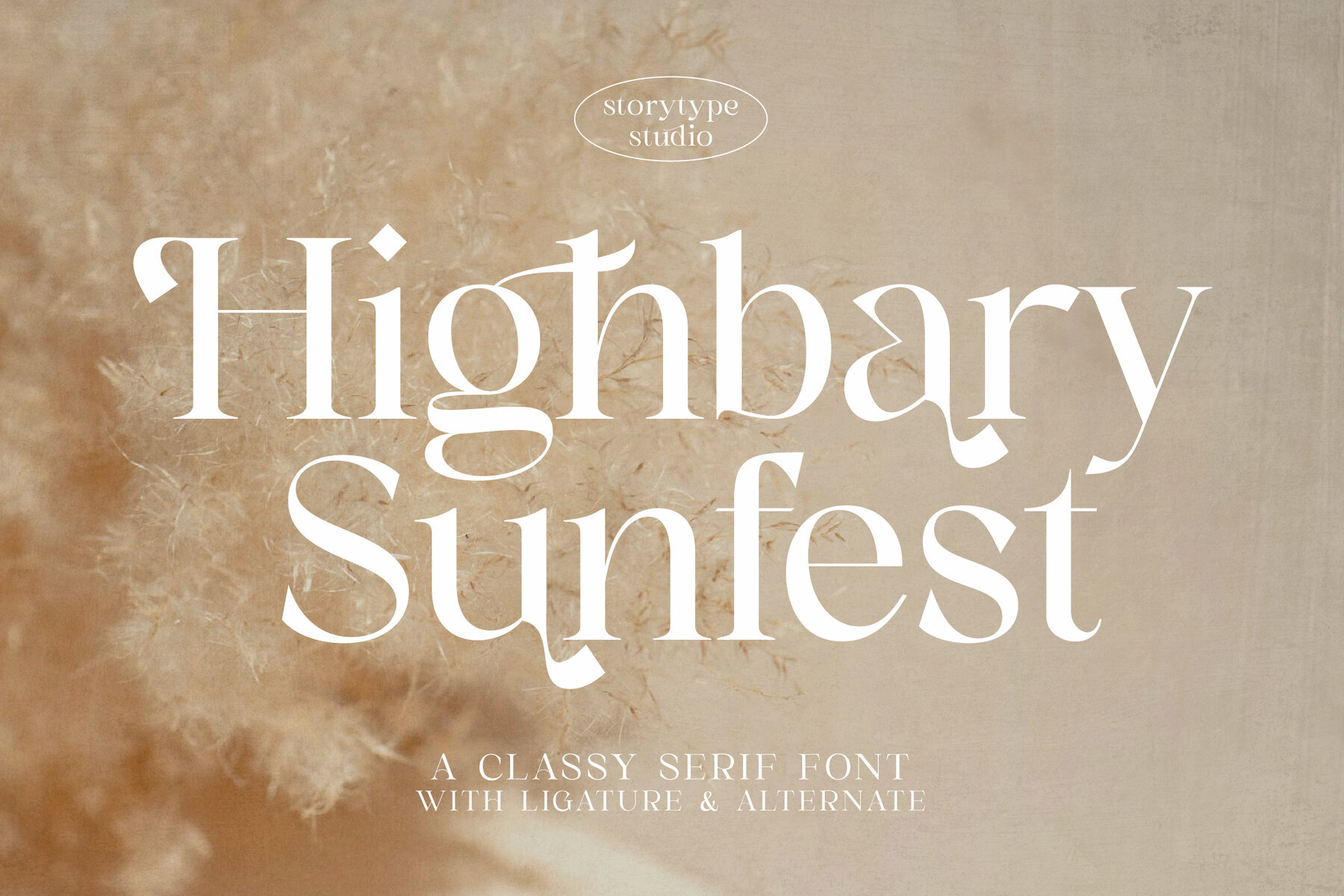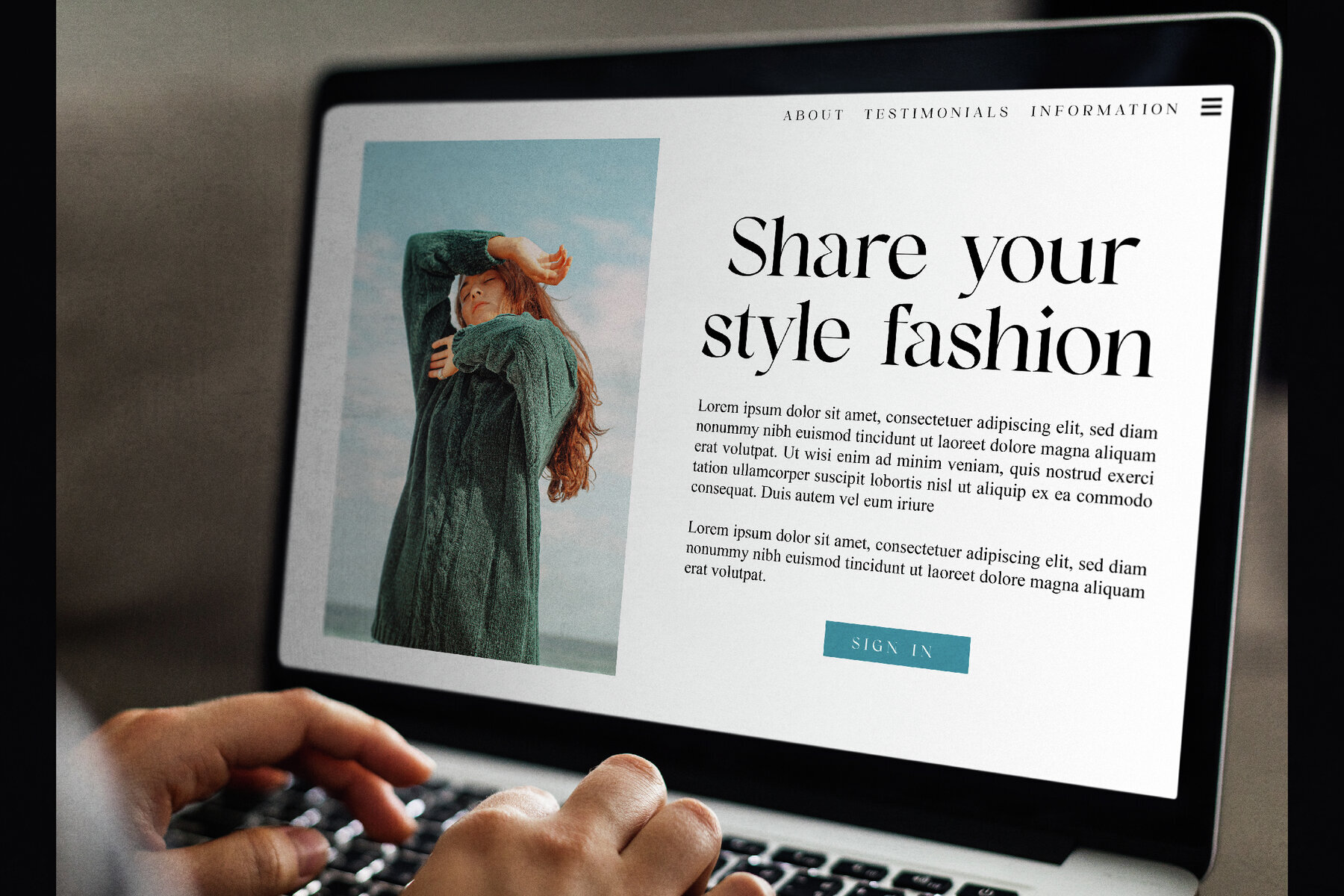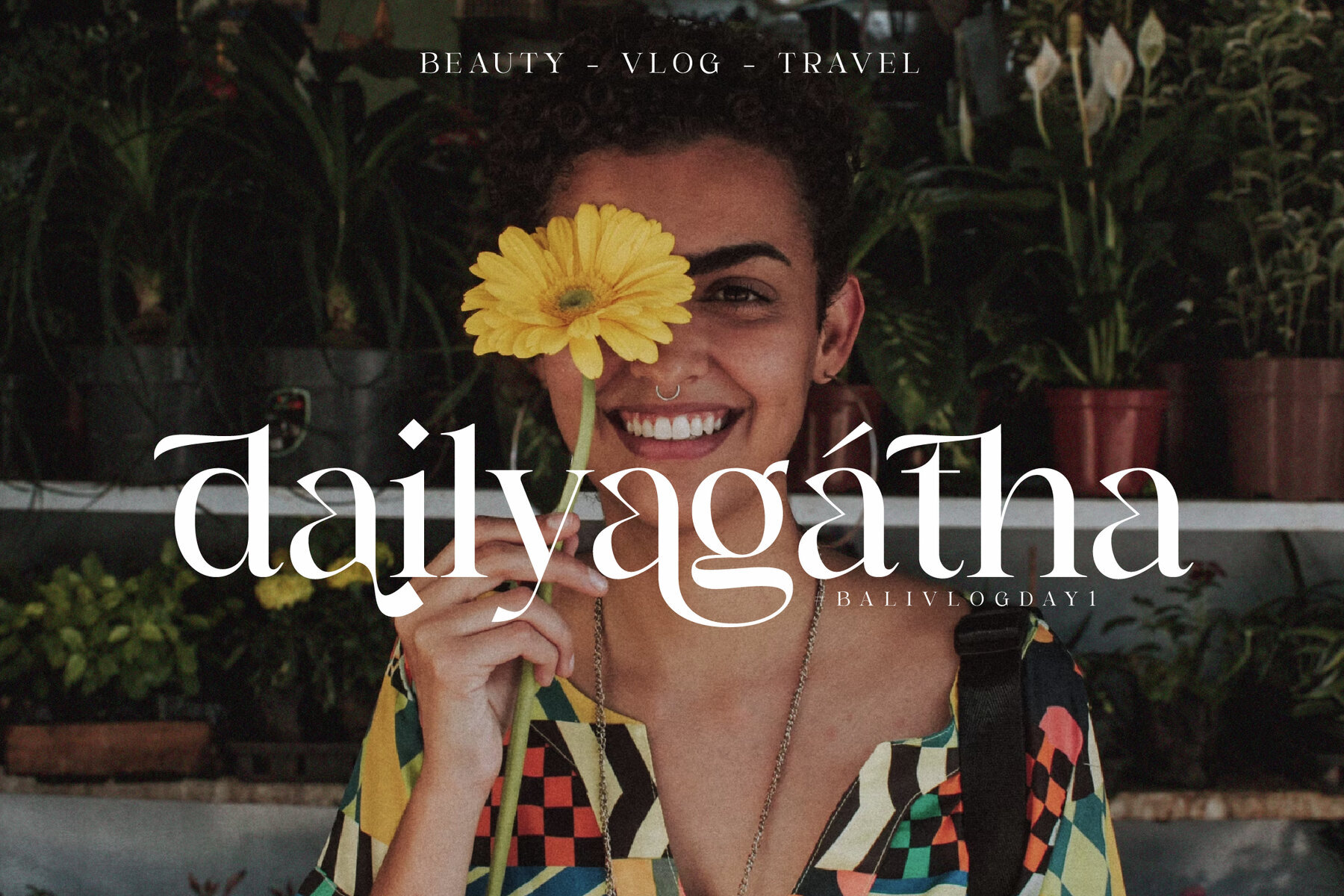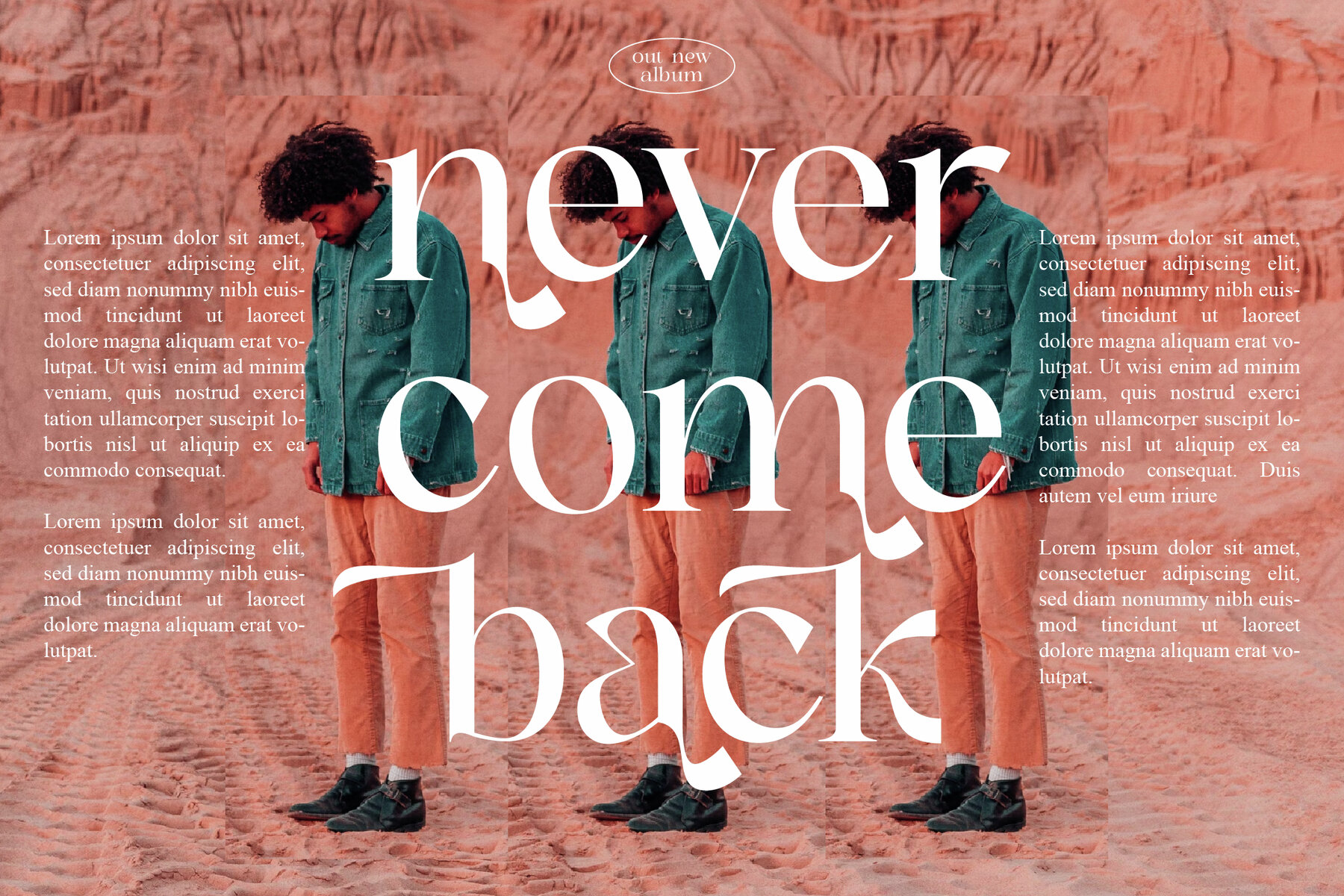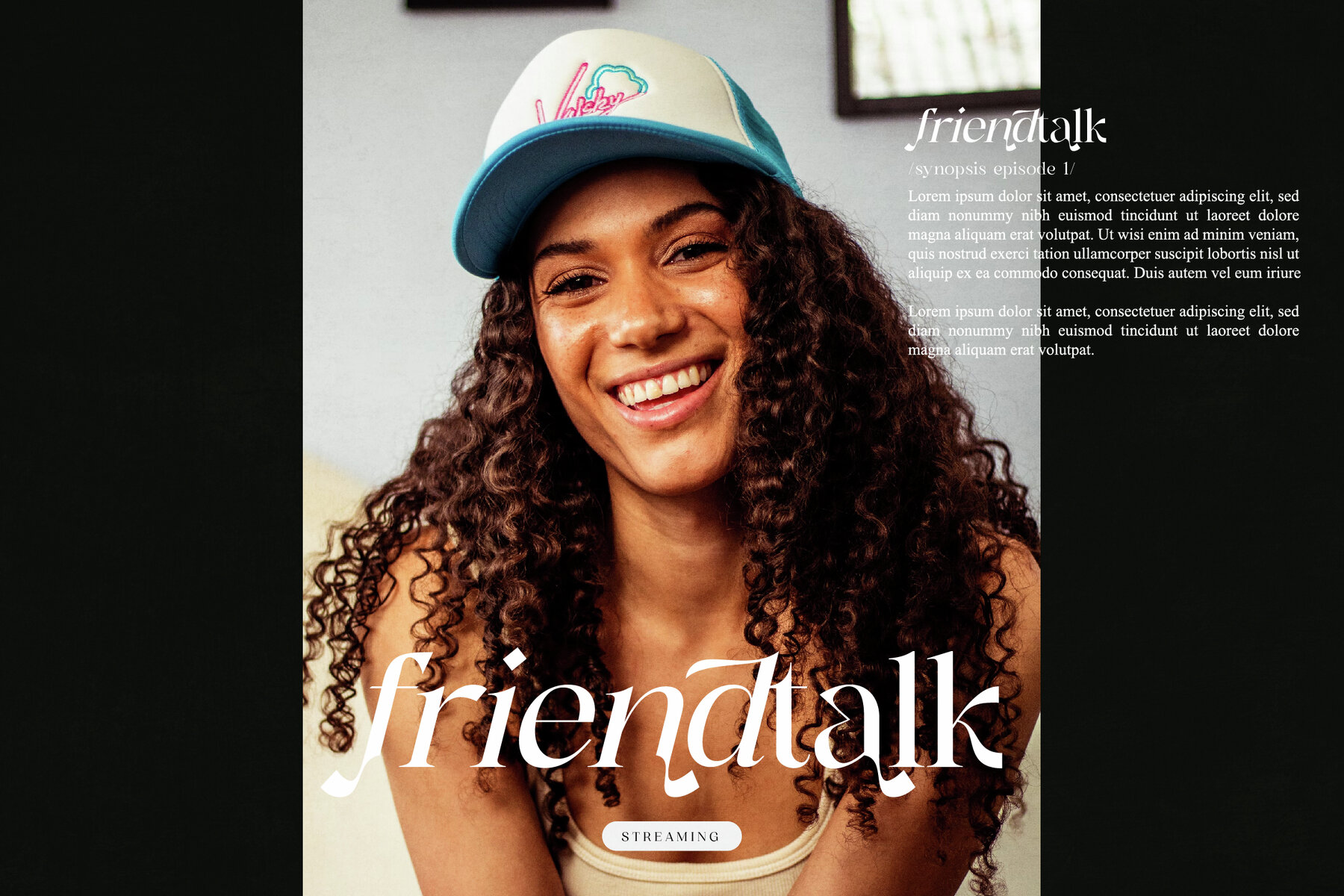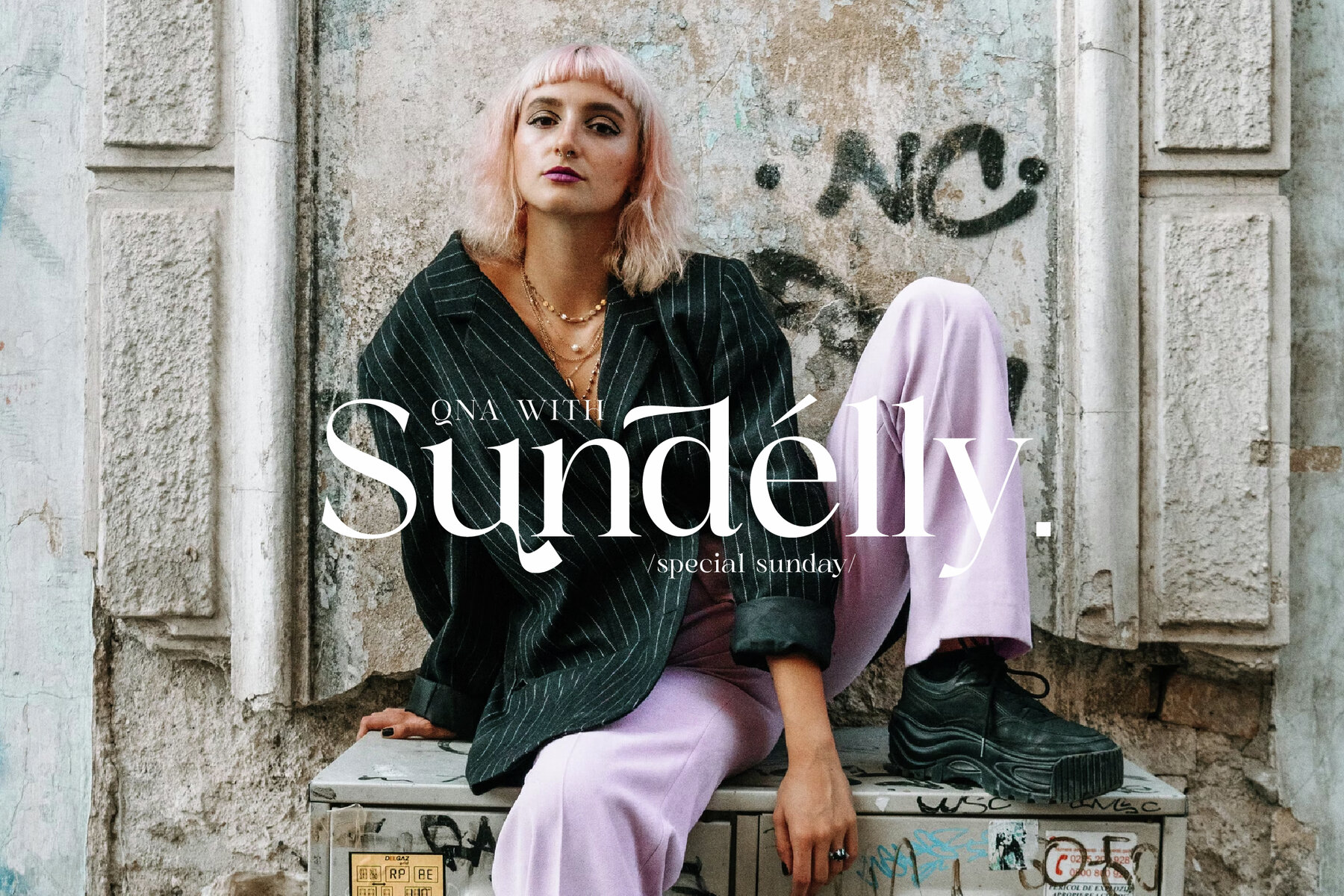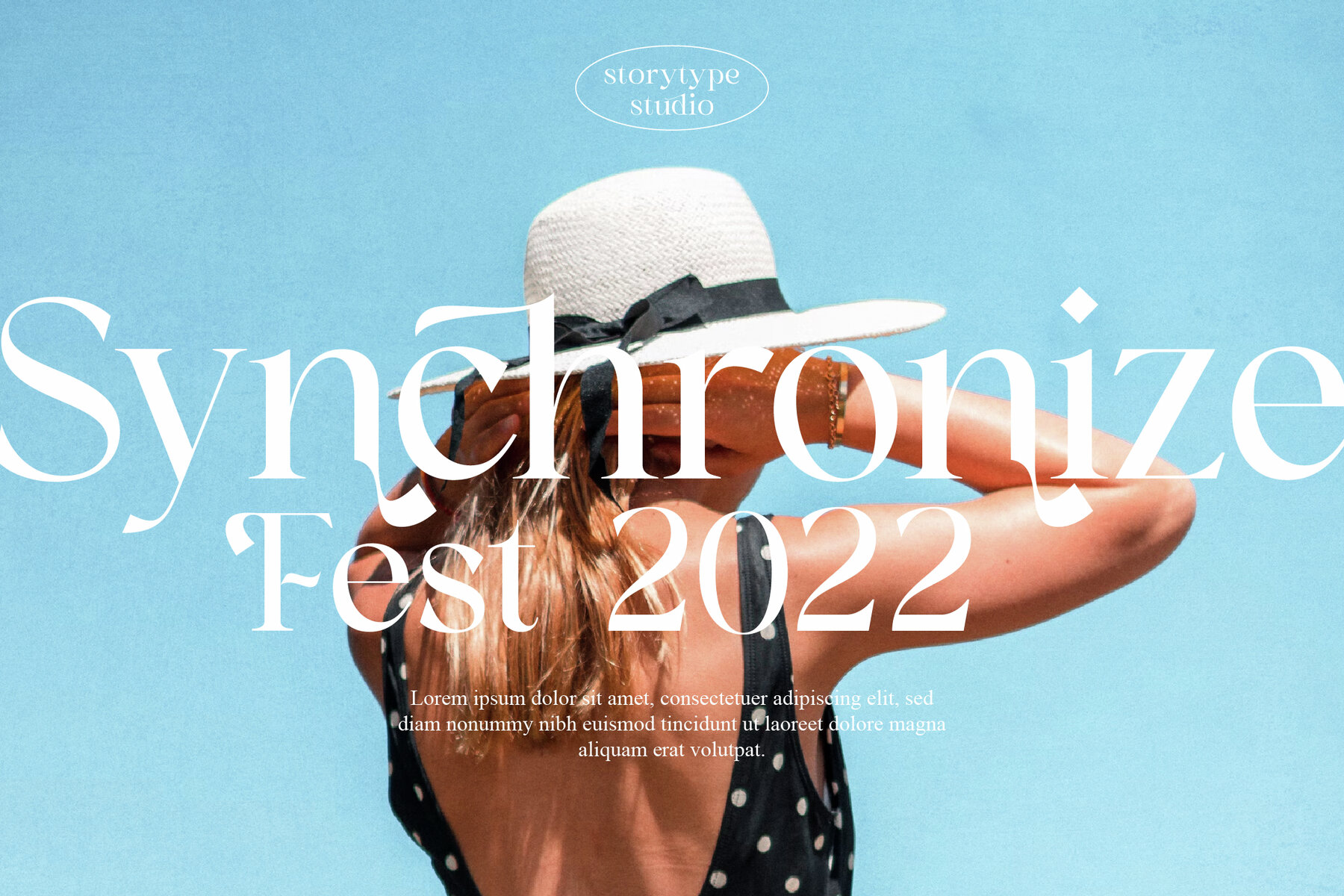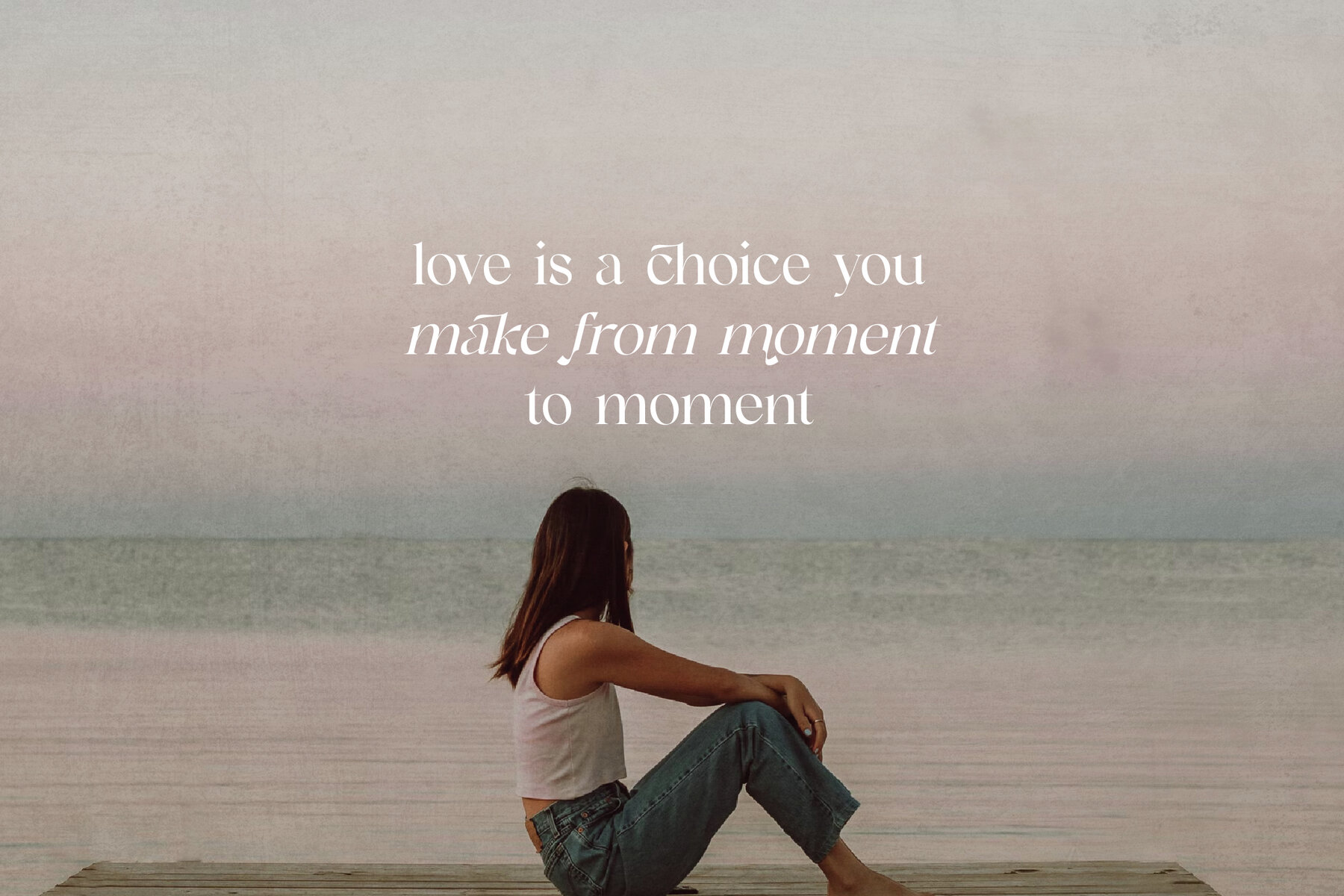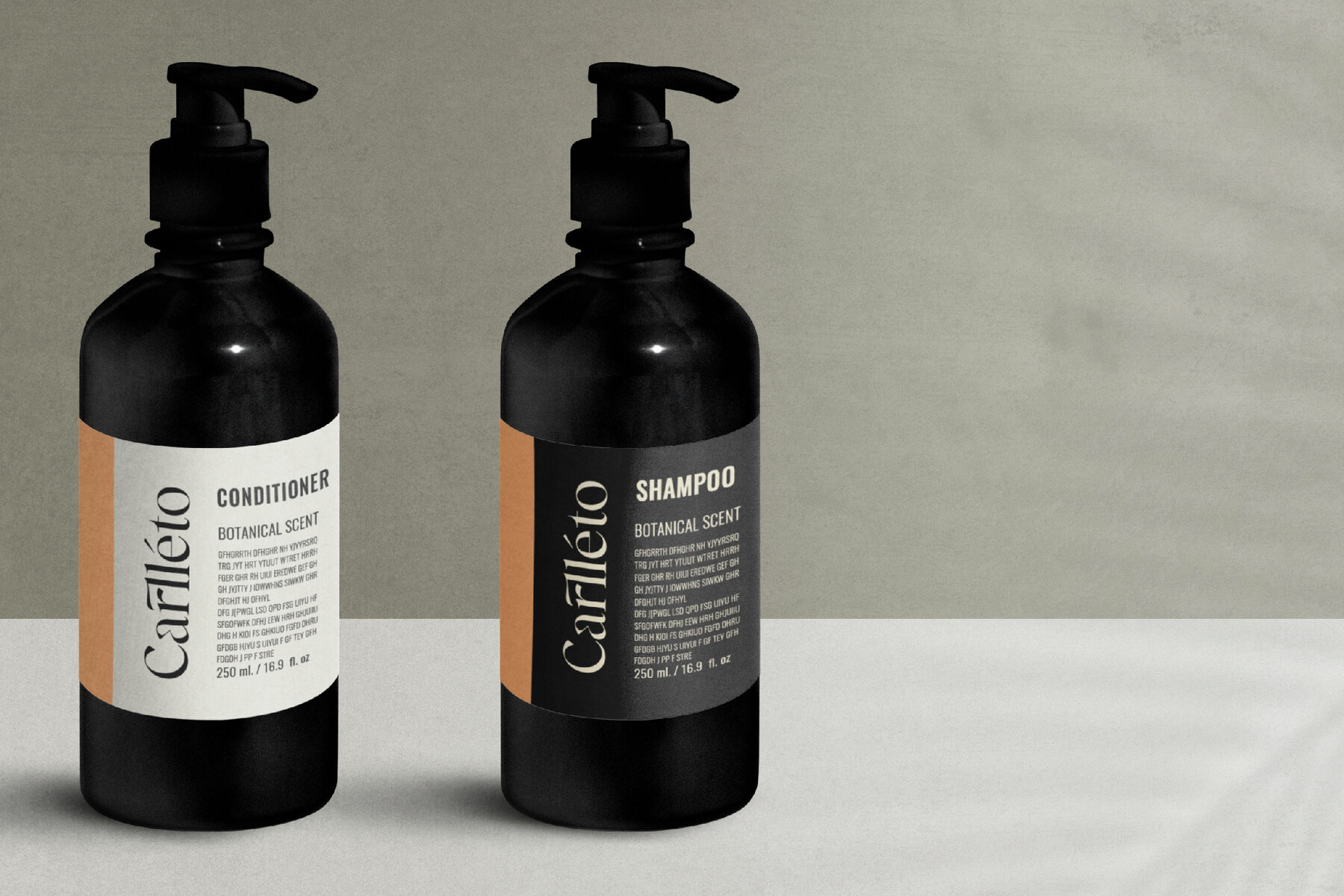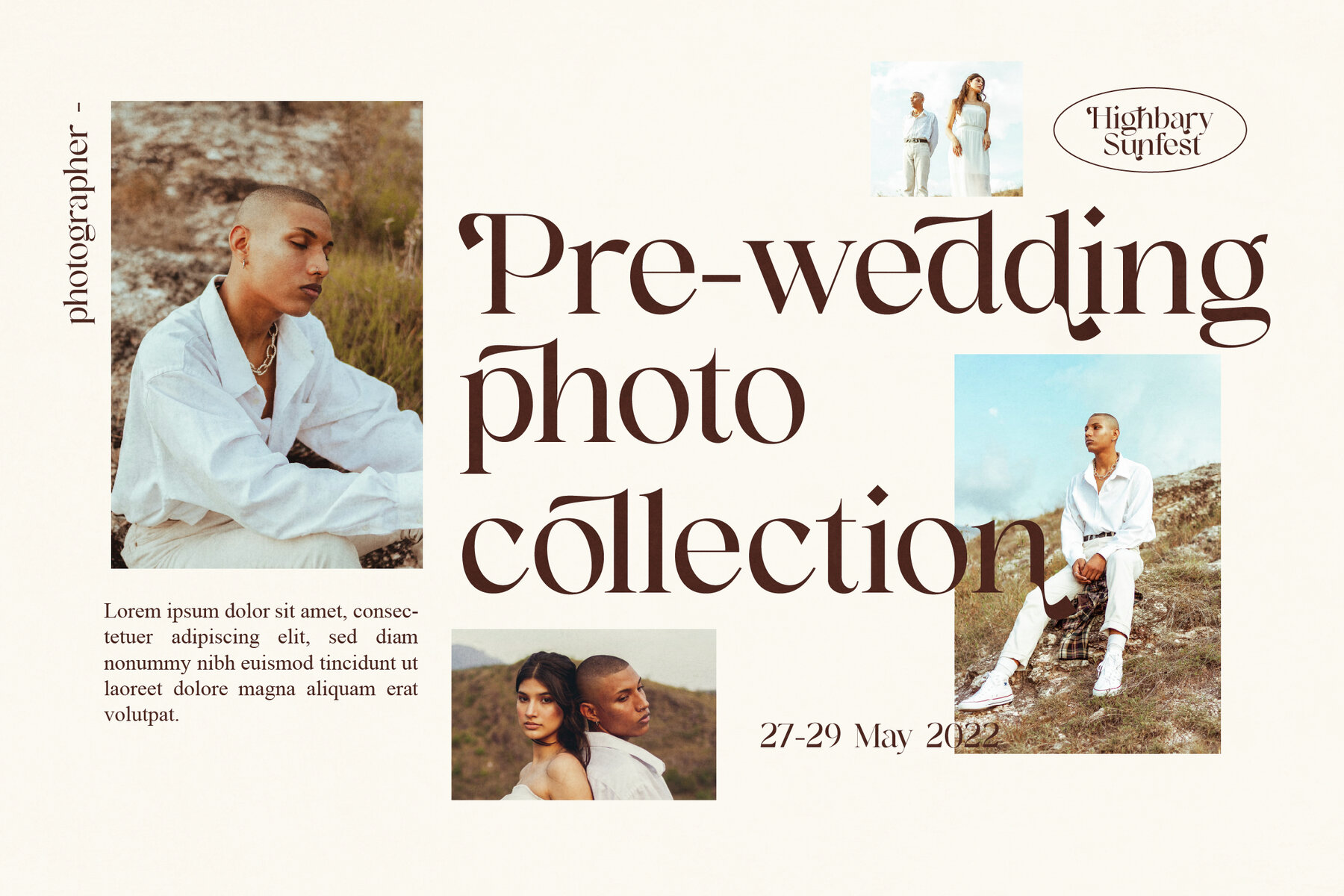
Highbary Sunfest Font
Highbary Sunfest is a modern and classic serif typeface crafted with a unique and stylish flair. This versatile font is ideal for creating sophisticated and luxurious logos, striking book or movie titles, and elegant fashion branding. Its timeless elegance makes it perfect for use in magazines, clothing design, artistic lettering, and impactful quotes.
The Highbary Sunfest typeface comes equipped with standard glyphs, as well as alternate and ligature options, ensuring plenty of creative flexibility. It is compatible with both PC and Mac systems and integrates seamlessly with industry-standard software like Adobe Illustrator, Photoshop, InDesign, and even Microsoft Word. With PUA Encoded Characters, this font provides full accessibility without the need for additional design software. Additionally, Highbary Sunfest offers multilingual support to cater to a diverse range of design needs.